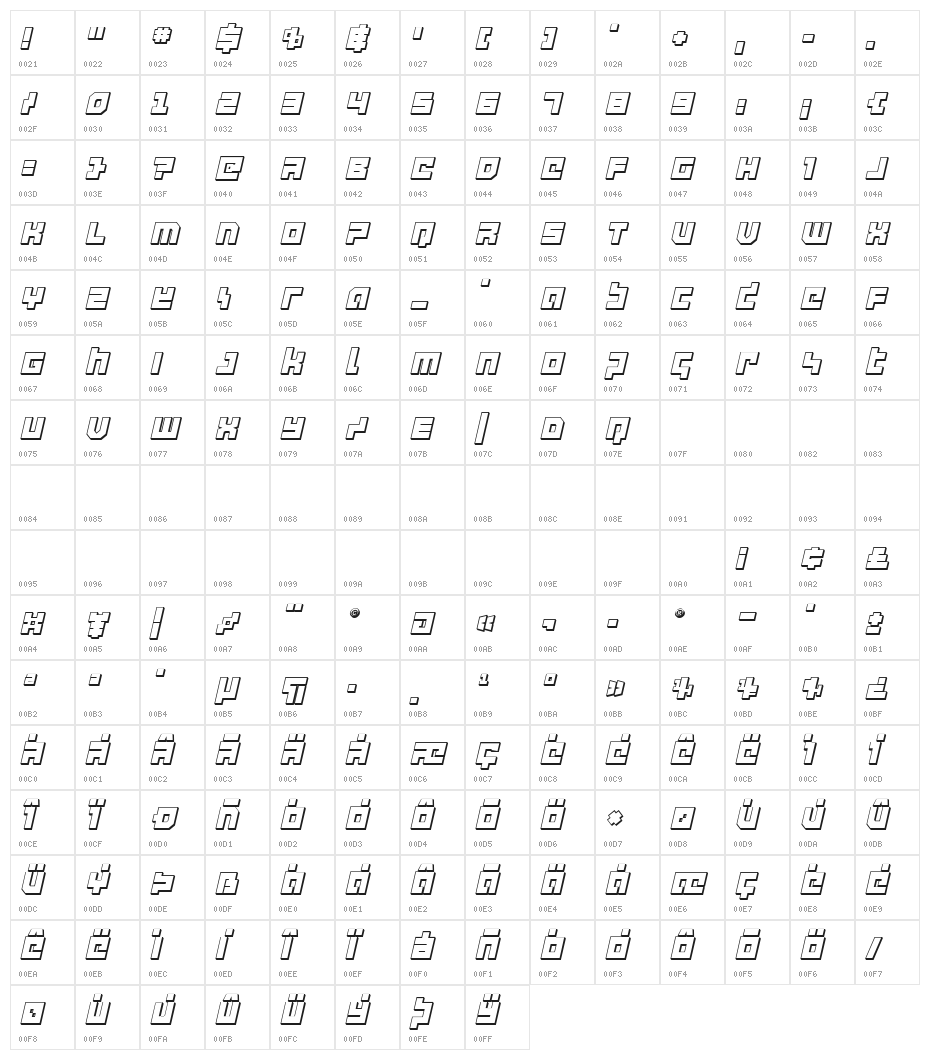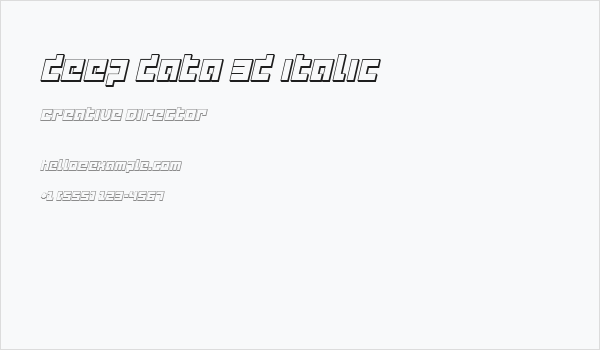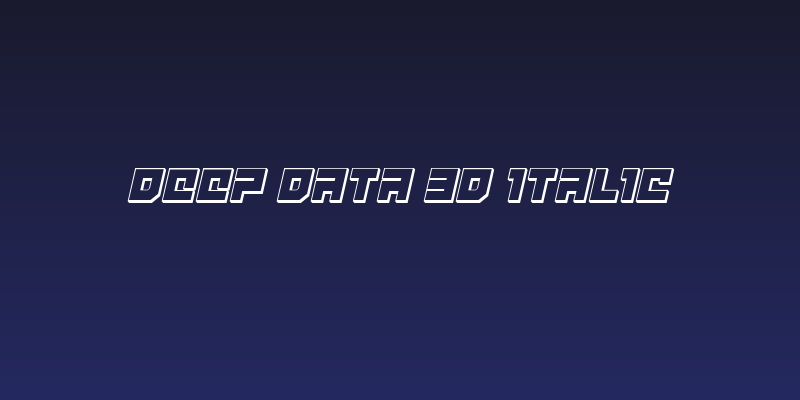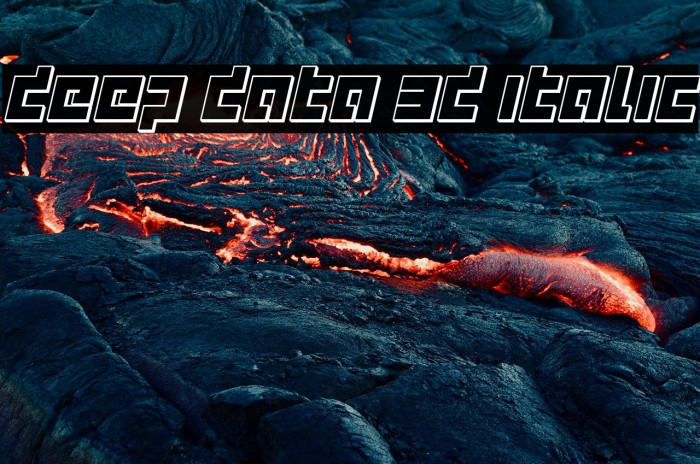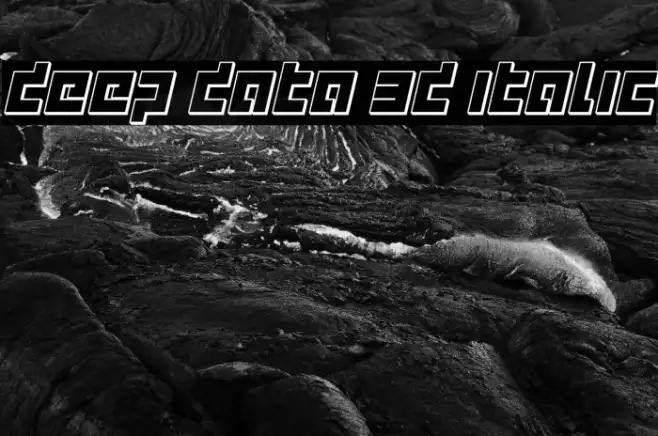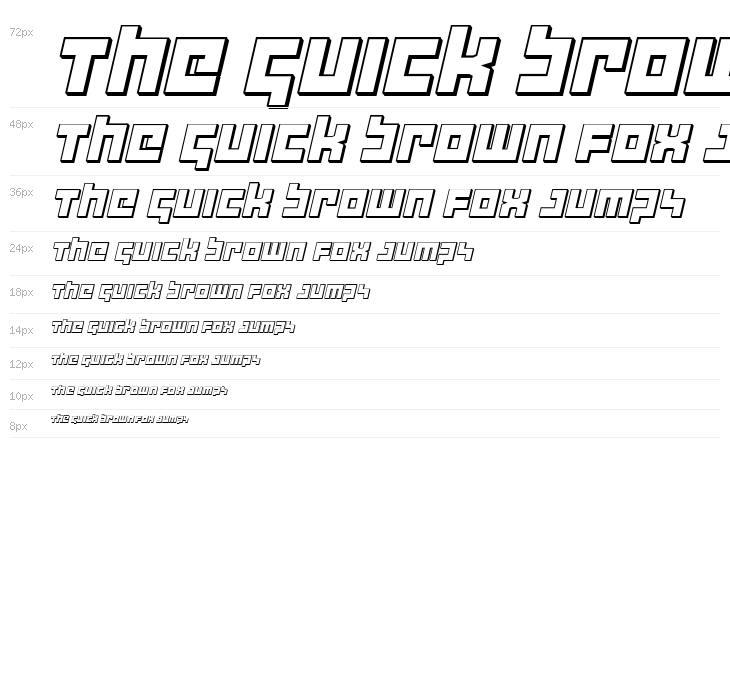
deep data 3d italic Font
deep data 3d italic Description
This font features a bold, three-dimensional appearance with a distinct italic slant, giving it a futuristic and dynamic look. The characters are outlined, creating a hollow effect that enhances the 3D illusion. The geometric shapes and sharp angles contribute to its modern and edgy style. Each letter and number is designed with precision, maintaining consistency across the set. The special characters follow the same design principles, ensuring a cohesive visual identity. This font is ideal for projects that require a strong, impactful presence.
| Overall Style | Futuristic, Modern |
| Proposed Projects | Ideal for sci-fi themed designs, video game titles, tech branding, and futuristic posters. |